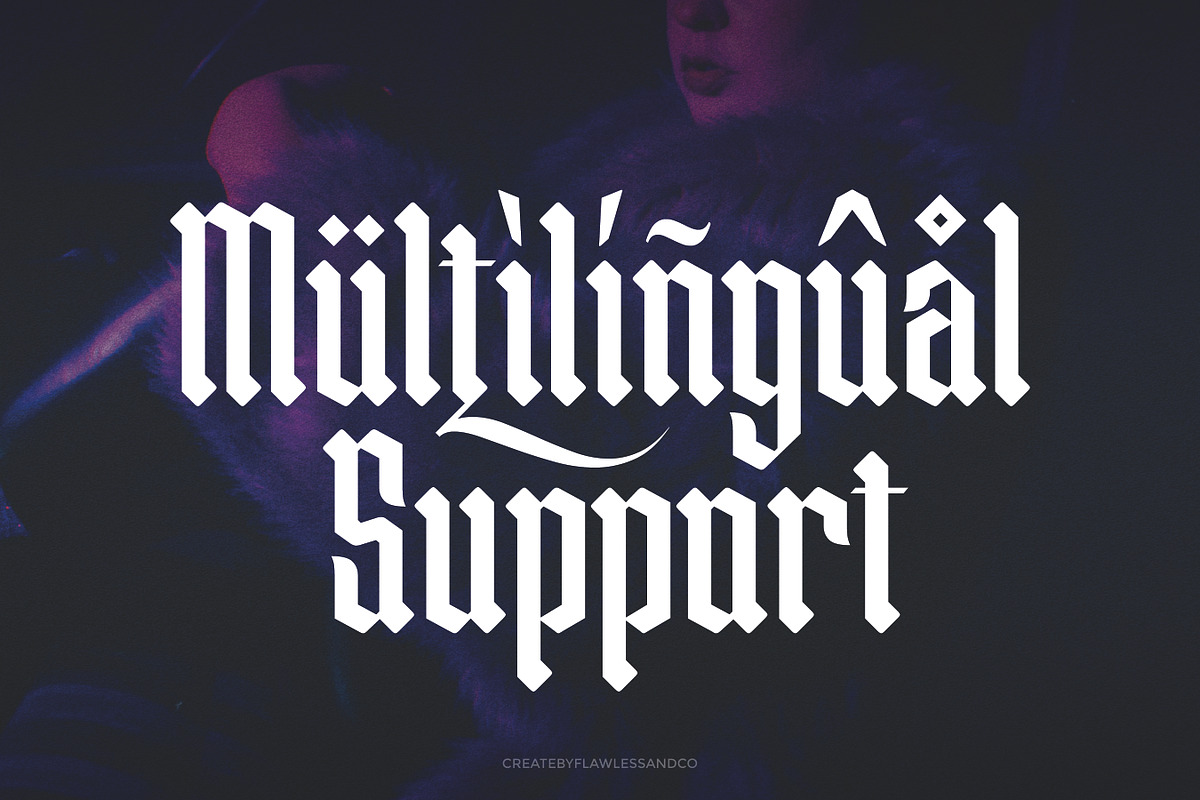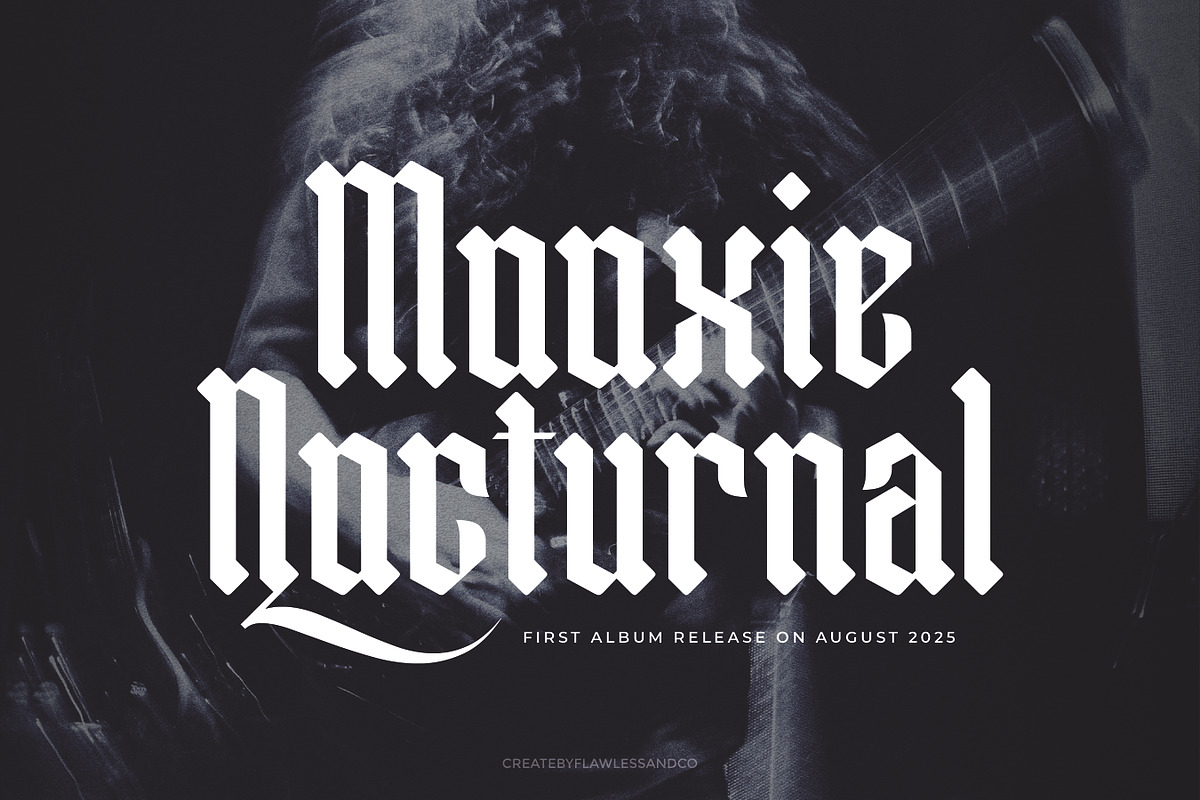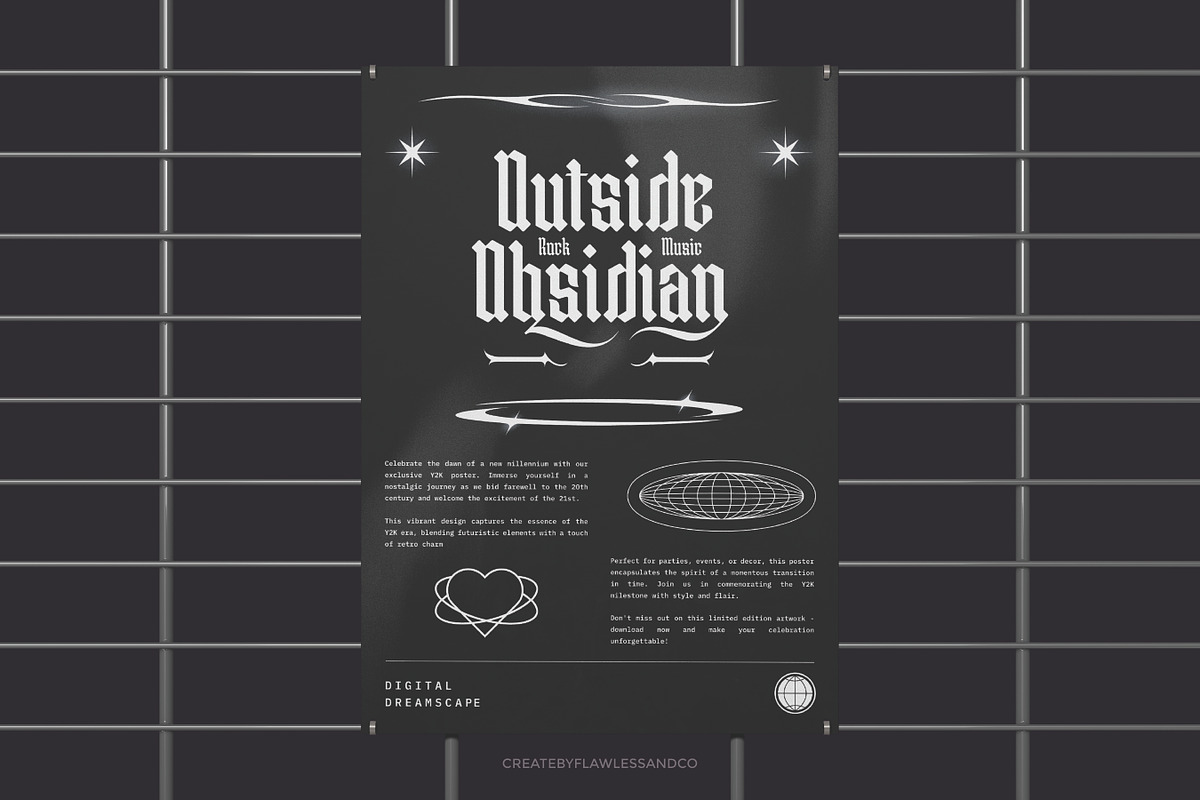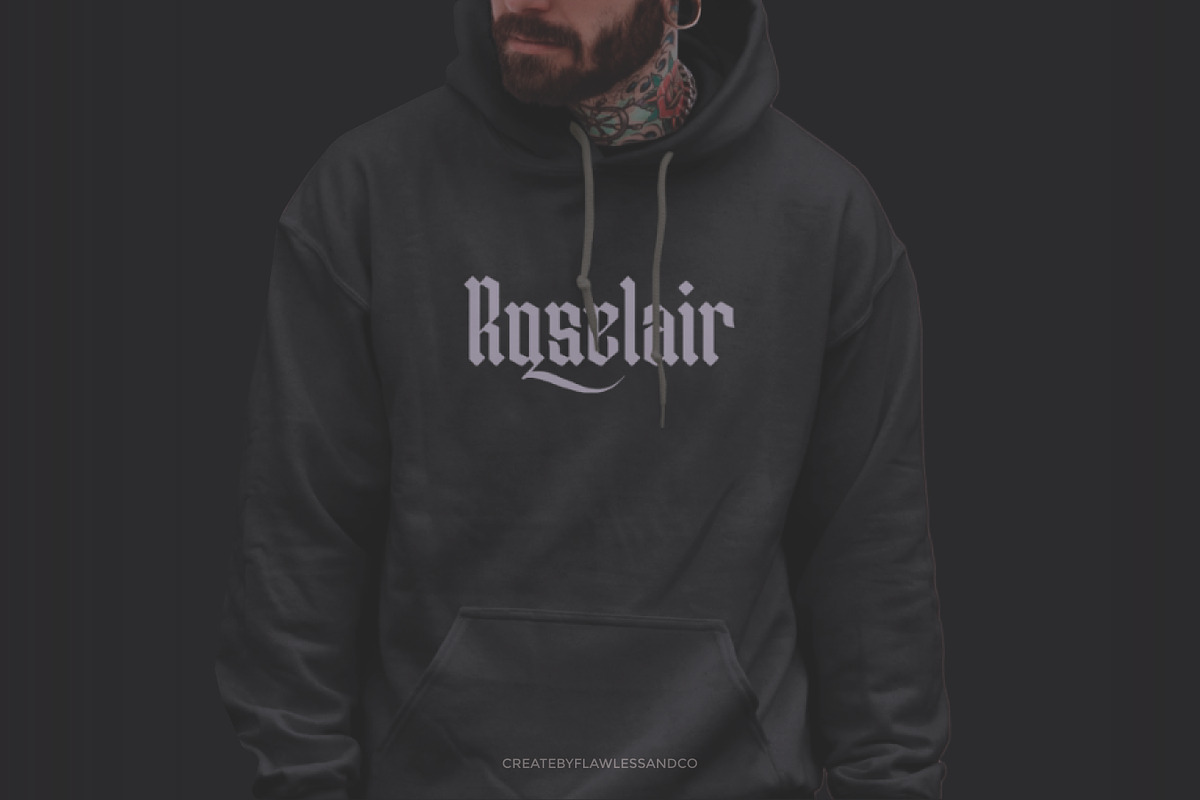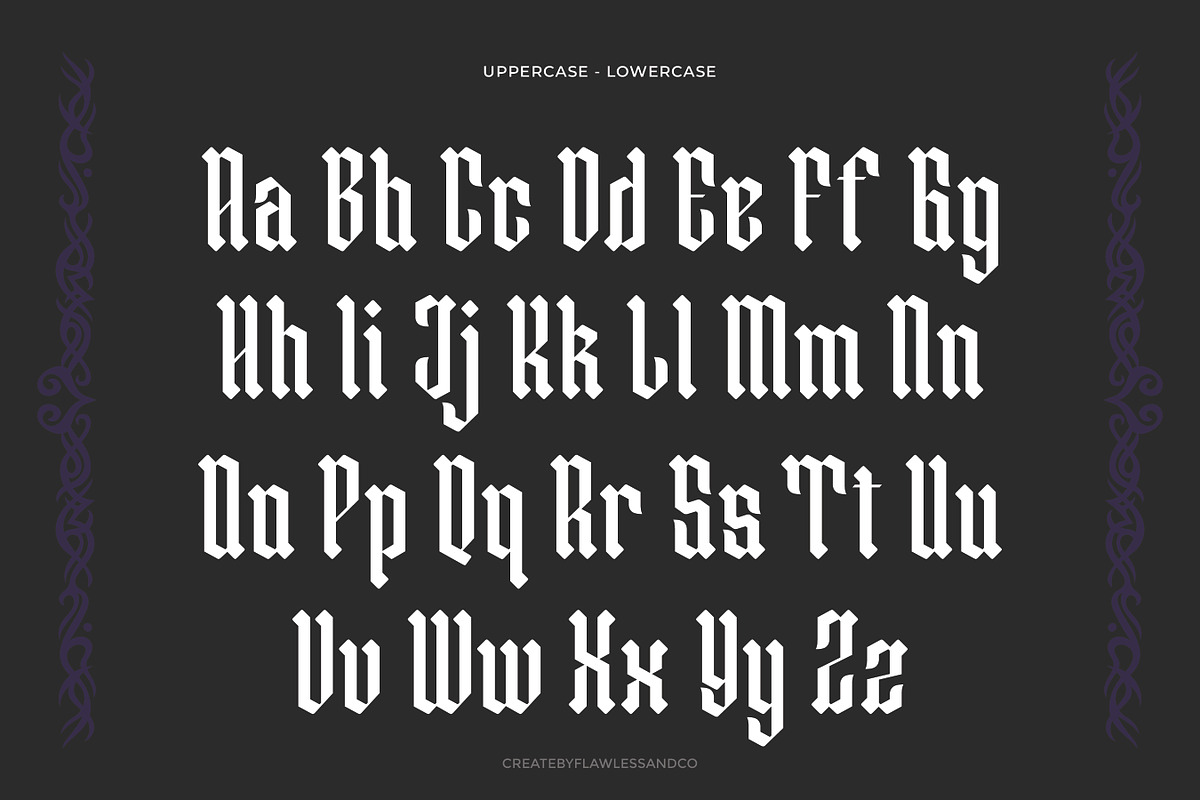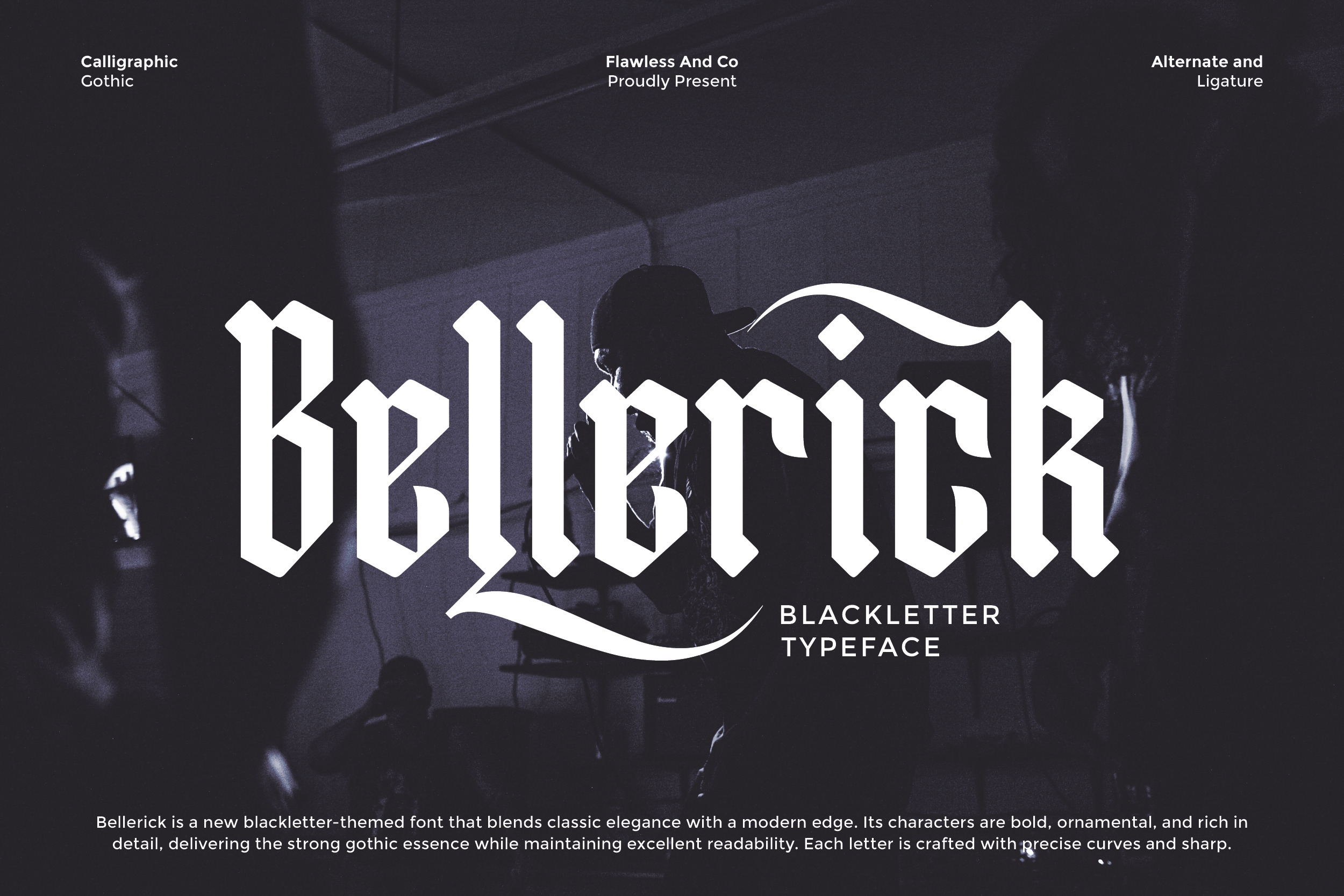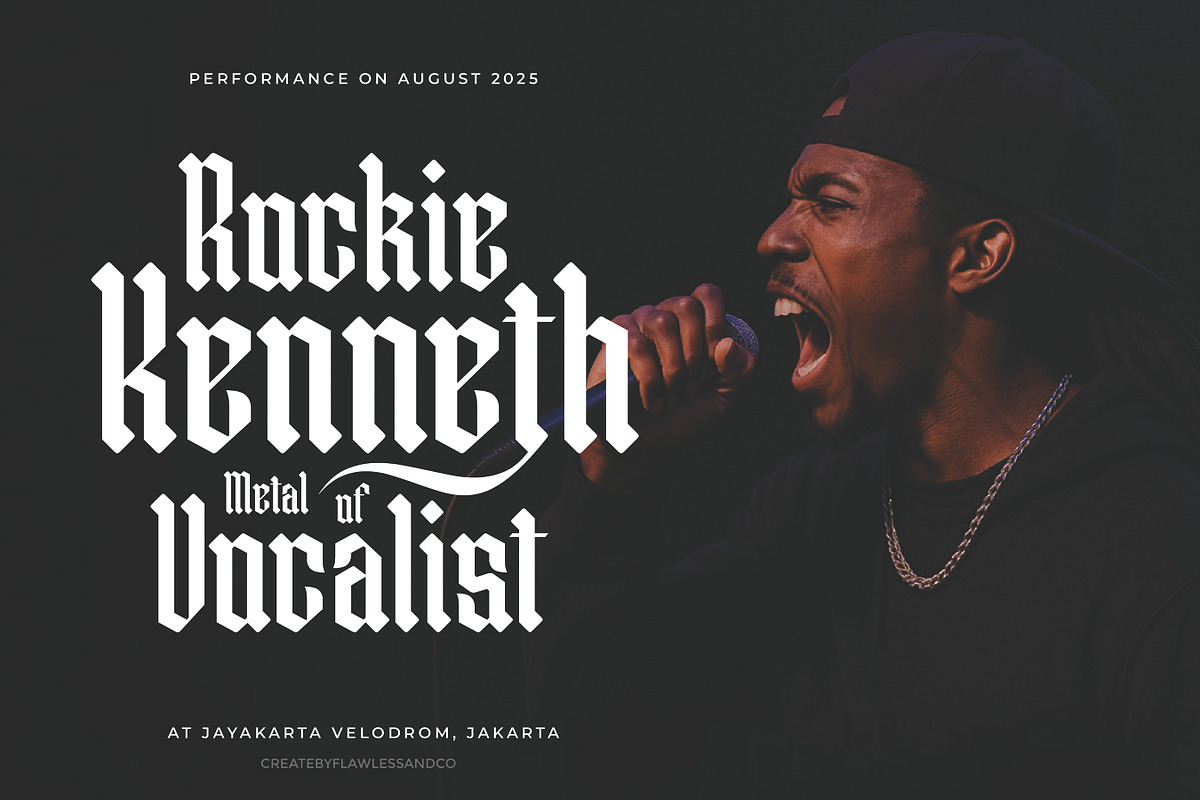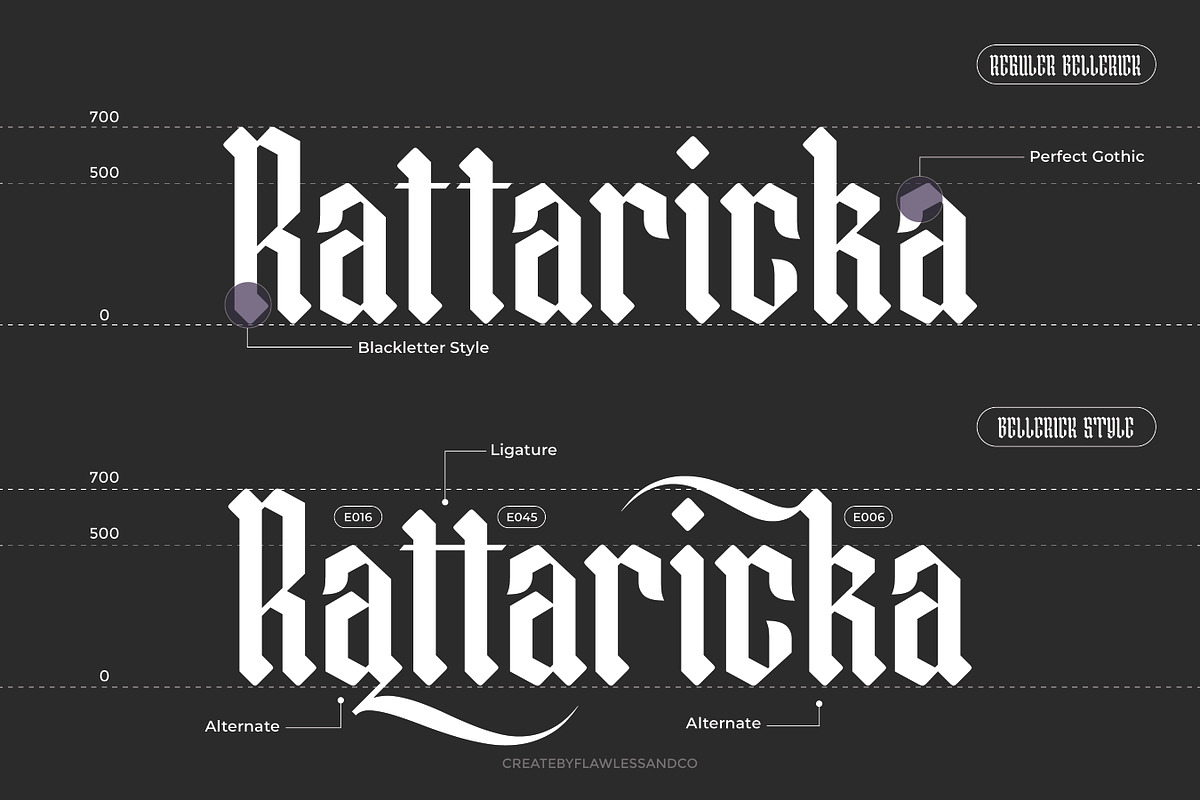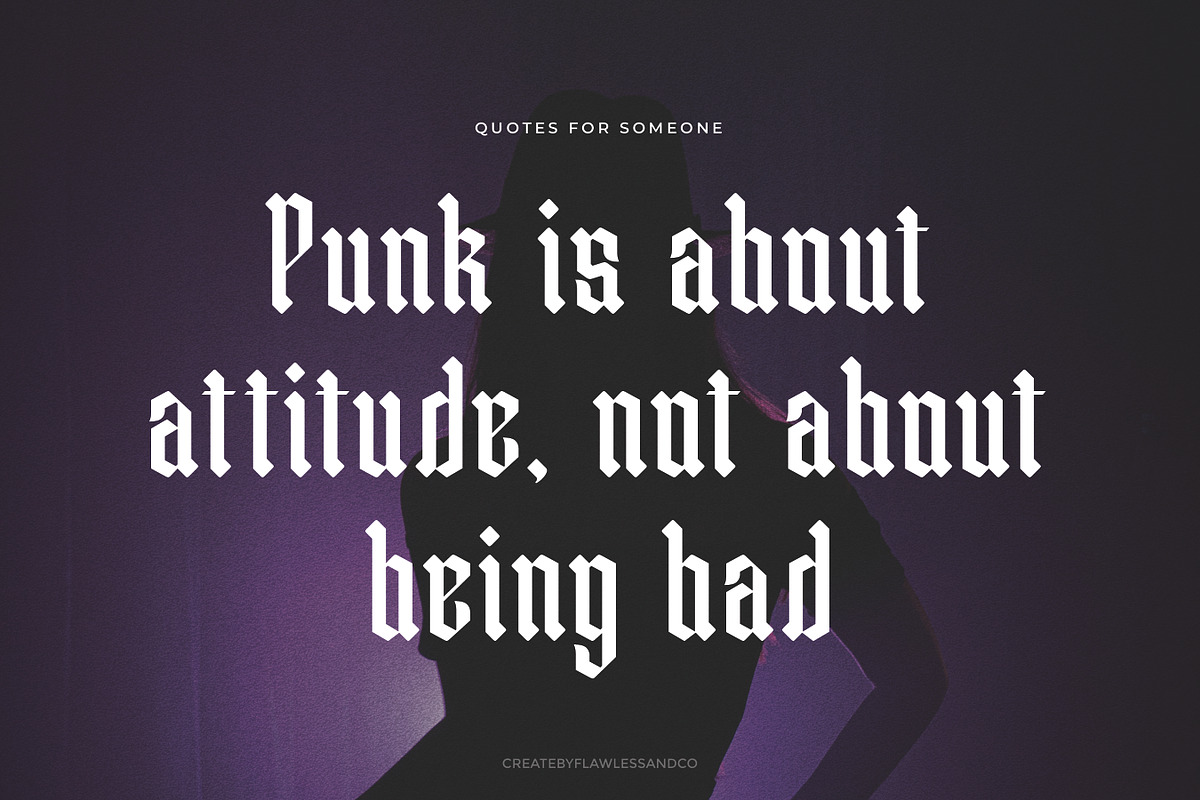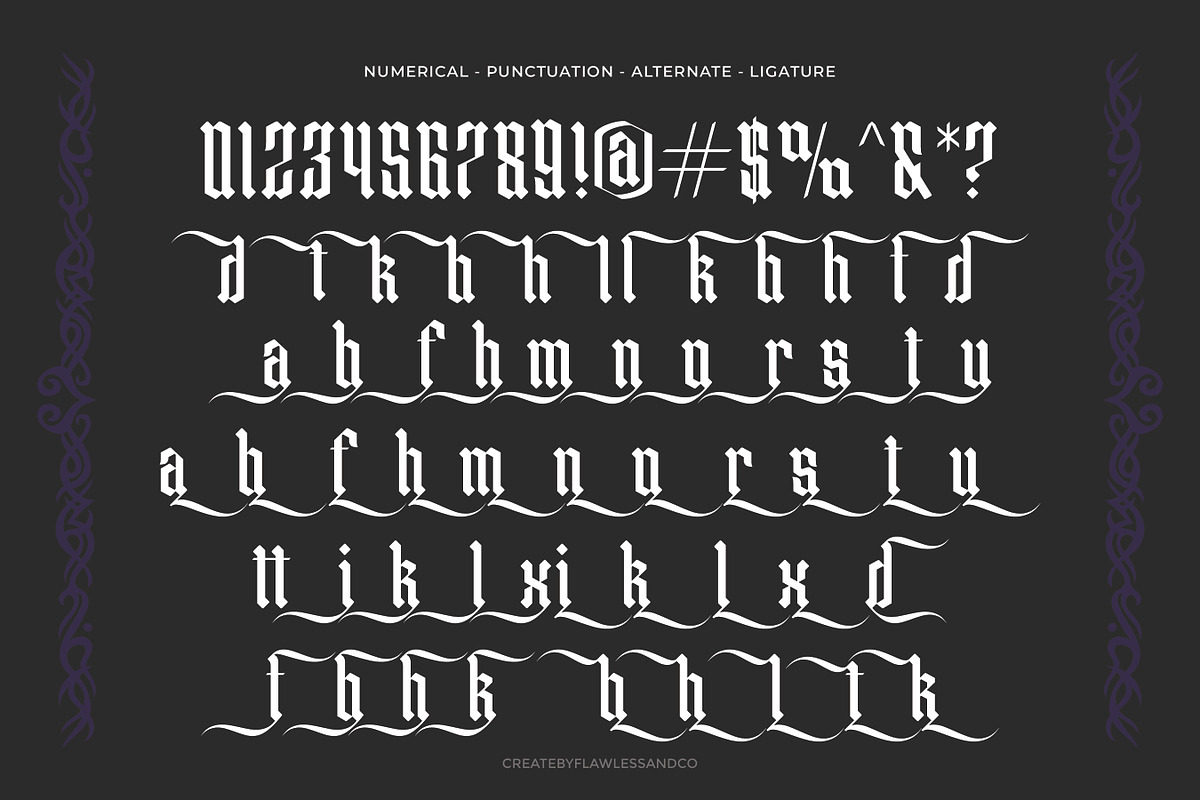
Bellerick - Blackletter Font
Bellerick - Blackletter Typeface Font
Bellerick is a striking blackletter typeface that merges traditional gothic aesthetics with a modern twist. Its bold and ornamental letterforms are crafted with sharp edges and smooth curves, giving it a distinctive and powerful presence. Perfect for projects that demand a strong gothic character while ensuring readability, Bellerick delivers elegance, strength, and artistry in every letter. Designed with alternate characters and stylish ligatures, this font offers flexibility and creativity for branding, logos, posters, and editorial designs.
Who Should Use Bellerick?
Bellerick is perfect for:
- Designers who want to add a bold gothic edge to their projects
- Creatives working on branding that needs a strong, memorable identity
- Tattoo artists, musicians, or bands looking for expressive typography
- Poster, merchandise, and apparel designers seeking a striking visual impact
- Anyone who loves classic blackletter style with a modern twist
A Must-Have Font for "Brand and Logo" Creators and Designers
Bellerick is more than just a typeface—it’s a bold design tool for anyone who wants to create logos and brand identities that stand out. Its gothic-inspired form and powerful presence make it essential for designers who aim to craft unforgettable visuals.
Why Choose Bellerick for "Brand and Logo" Projects?
Bellerick is designed to bring strength, impact, and timeless style into your branding. With its gothic-inspired details and bold structure, this font instantly communicates confidence and authority—perfect for brands that want to leave a lasting impression. Its versatility allows it to shine across modern logos, striking headlines, and premium identity designs, making it a go-to choice for creative professionals.
Suitable For:
- Brand identities and professional logo design
- Gothic, vintage, and bold editorial projects
- Posters, flyers, and impactful advertising designs
- Fashion, music, or streetwear branding
- Product packaging with strong character
- Book covers, album art, and creative publishing
- Social media graphics that demand attention